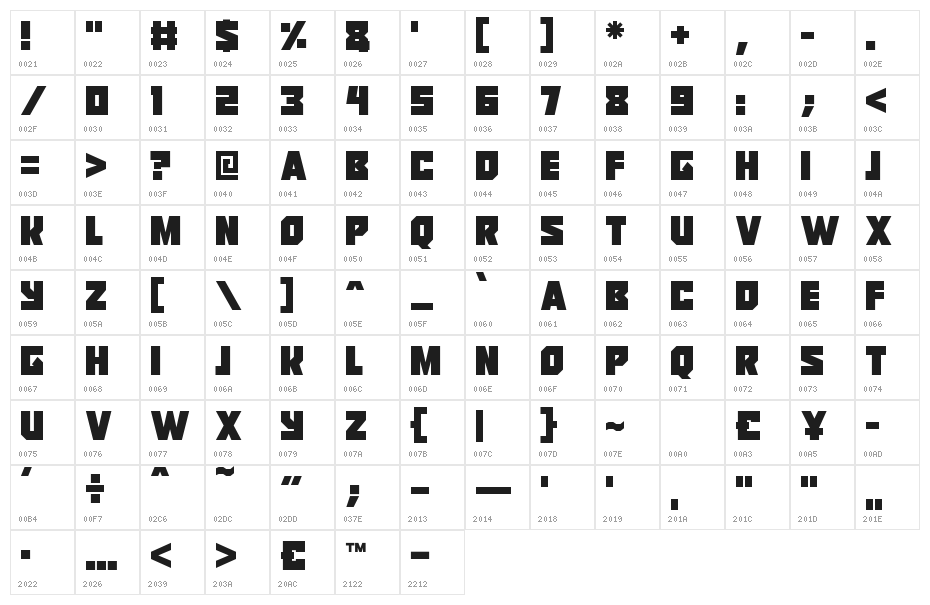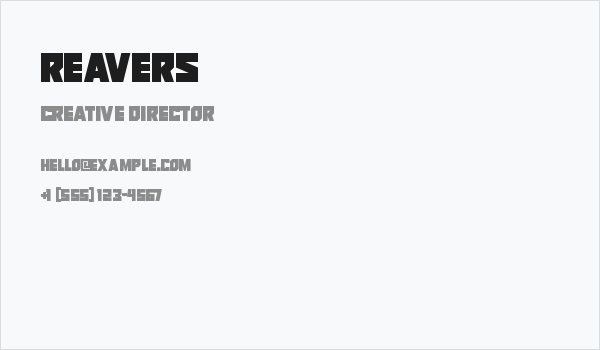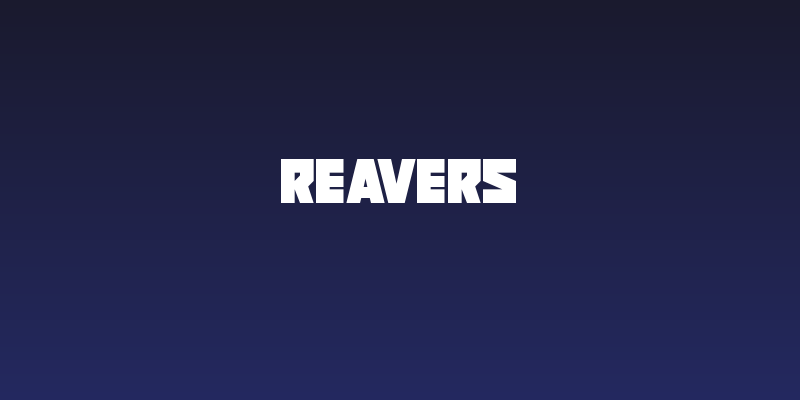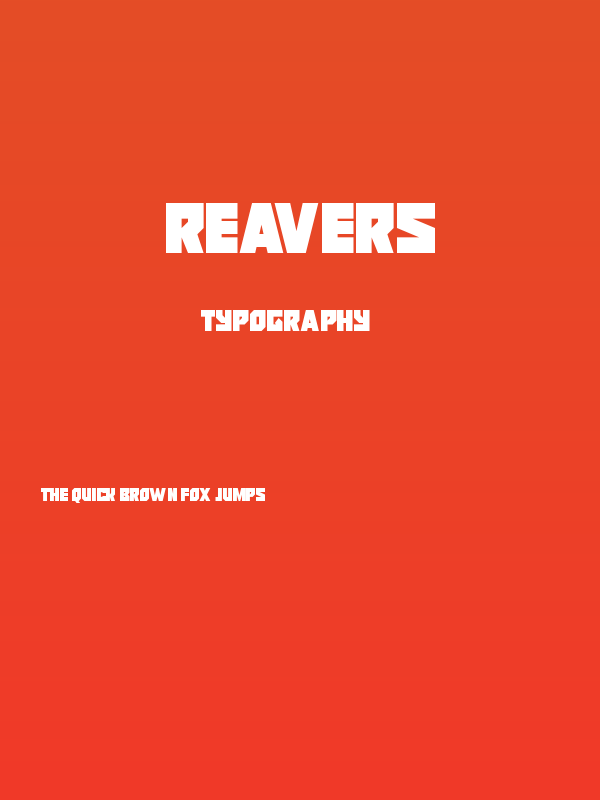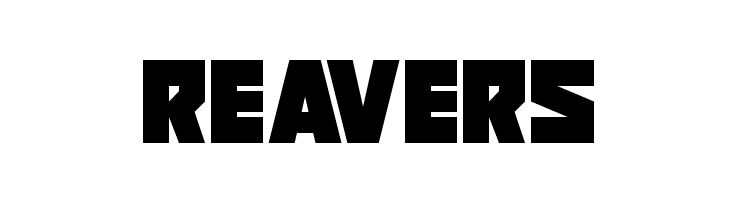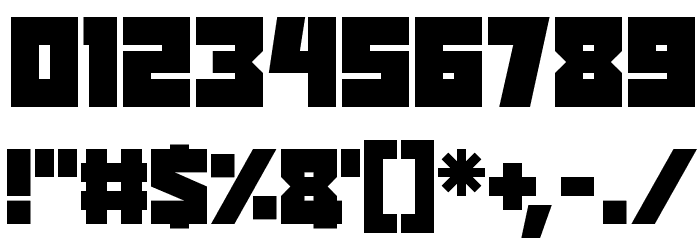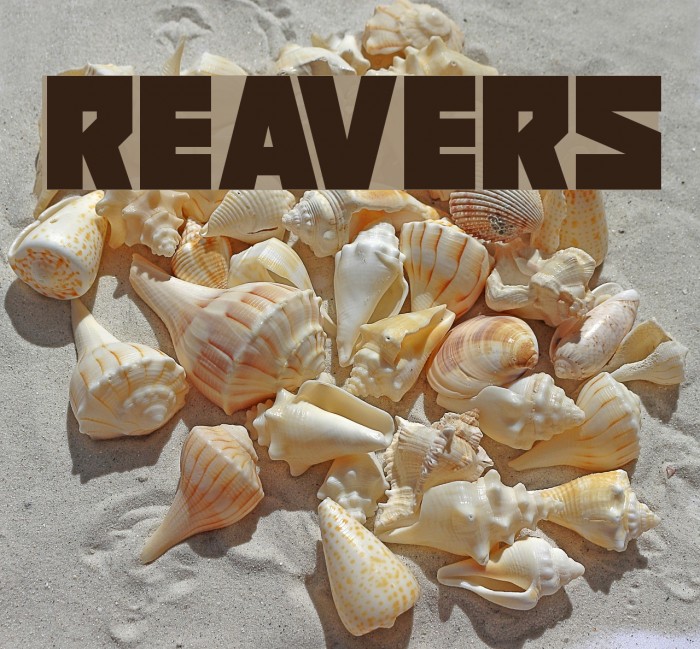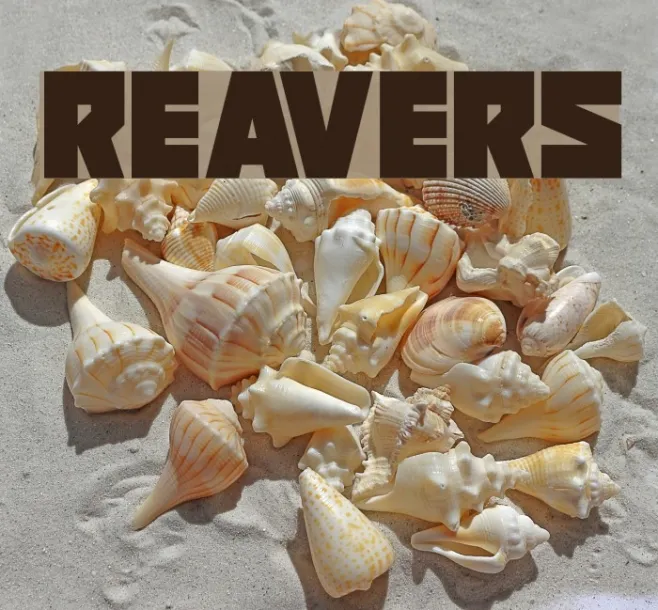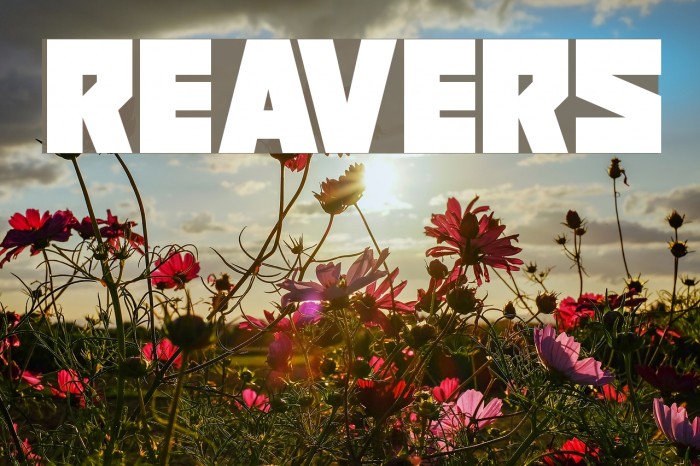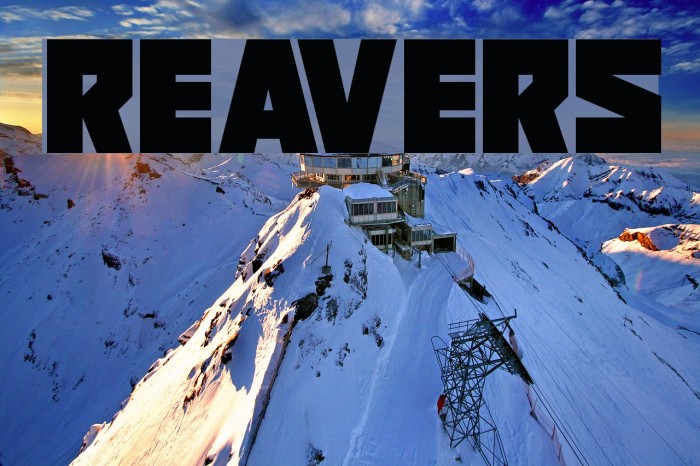
Reavers Font
Reavers Description
This font features a bold and blocky design with a strong geometric influence. The characters are constructed with sharp angles and straight lines, giving it a robust and industrial appearance. The uppercase and lowercase letters maintain a consistent height, contributing to a uniform look. The numbers and special characters follow the same bold style, ensuring a cohesive visual identity across all glyphs. The font's thick strokes and lack of curves emphasize its modern and assertive style, making it suitable for impactful designs.